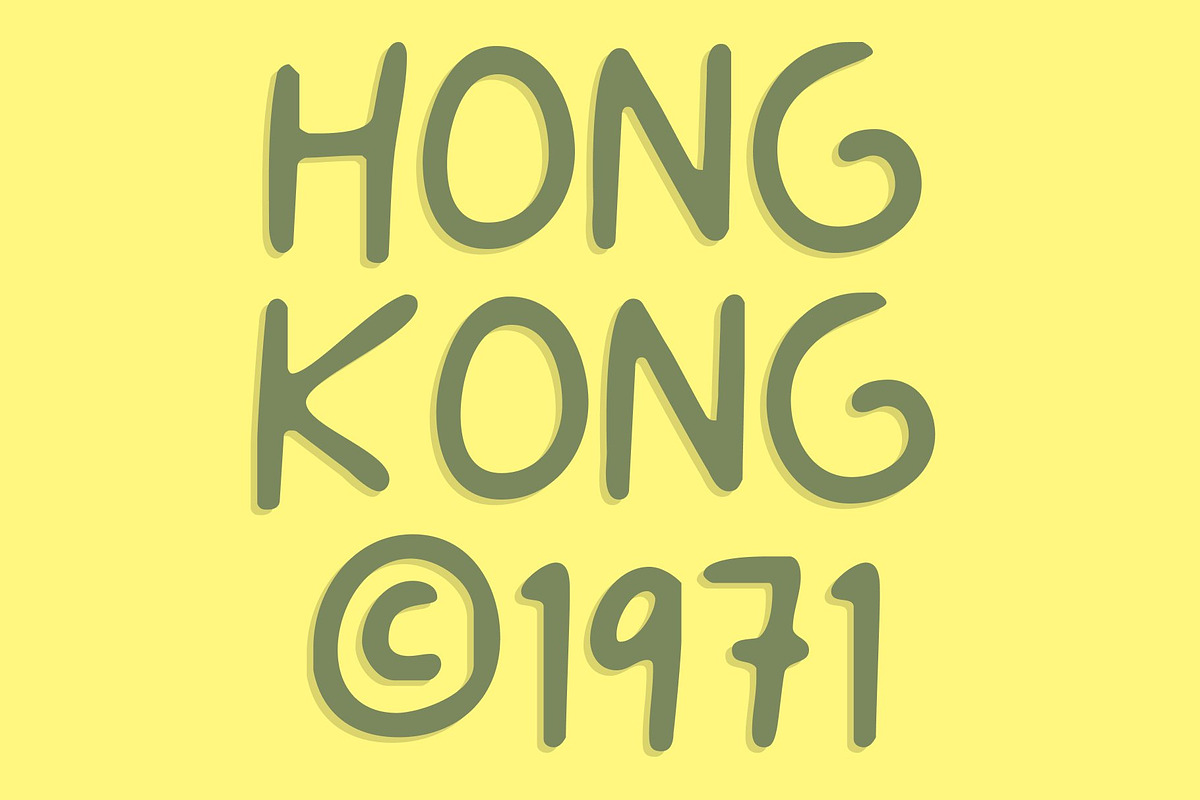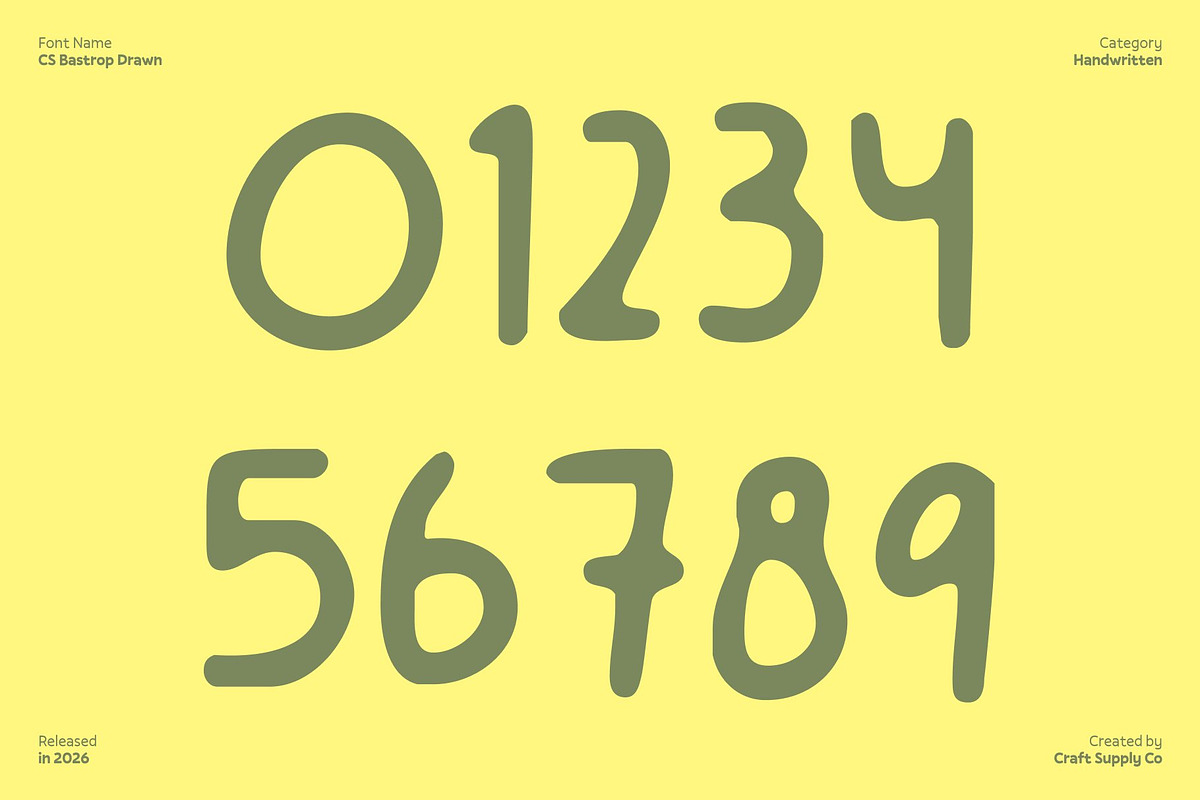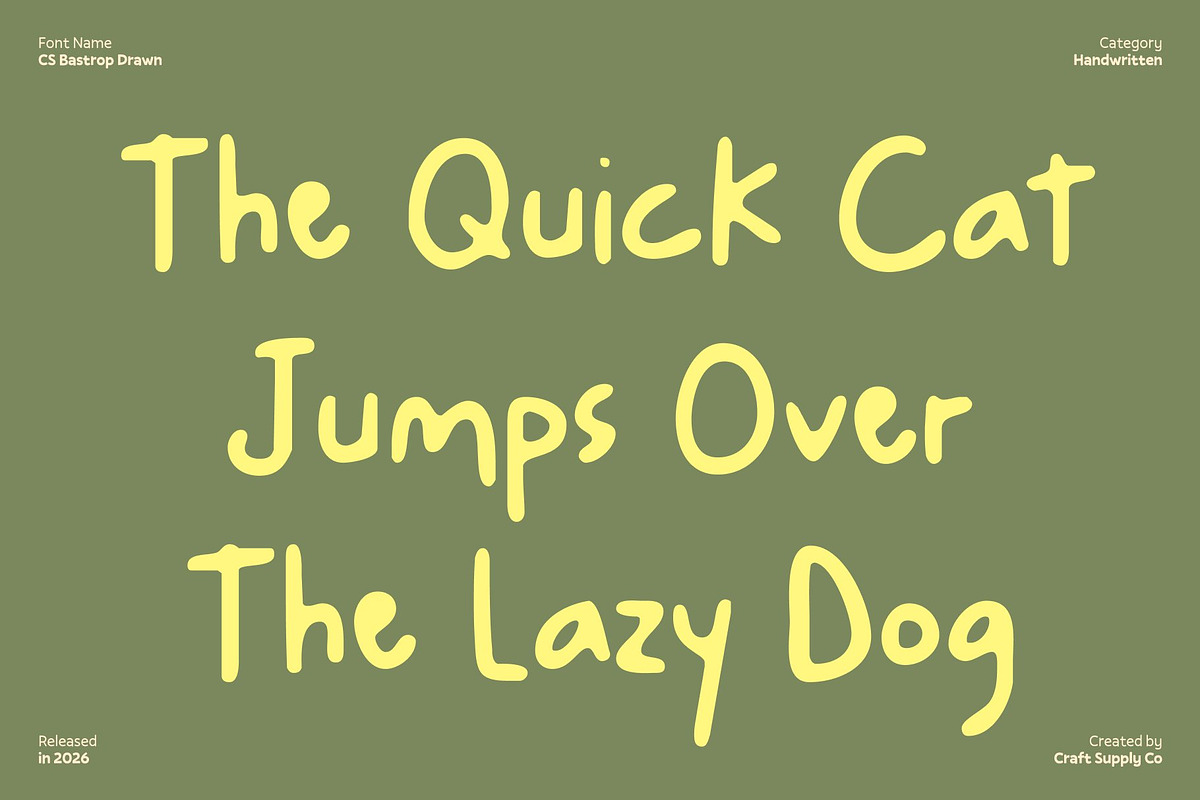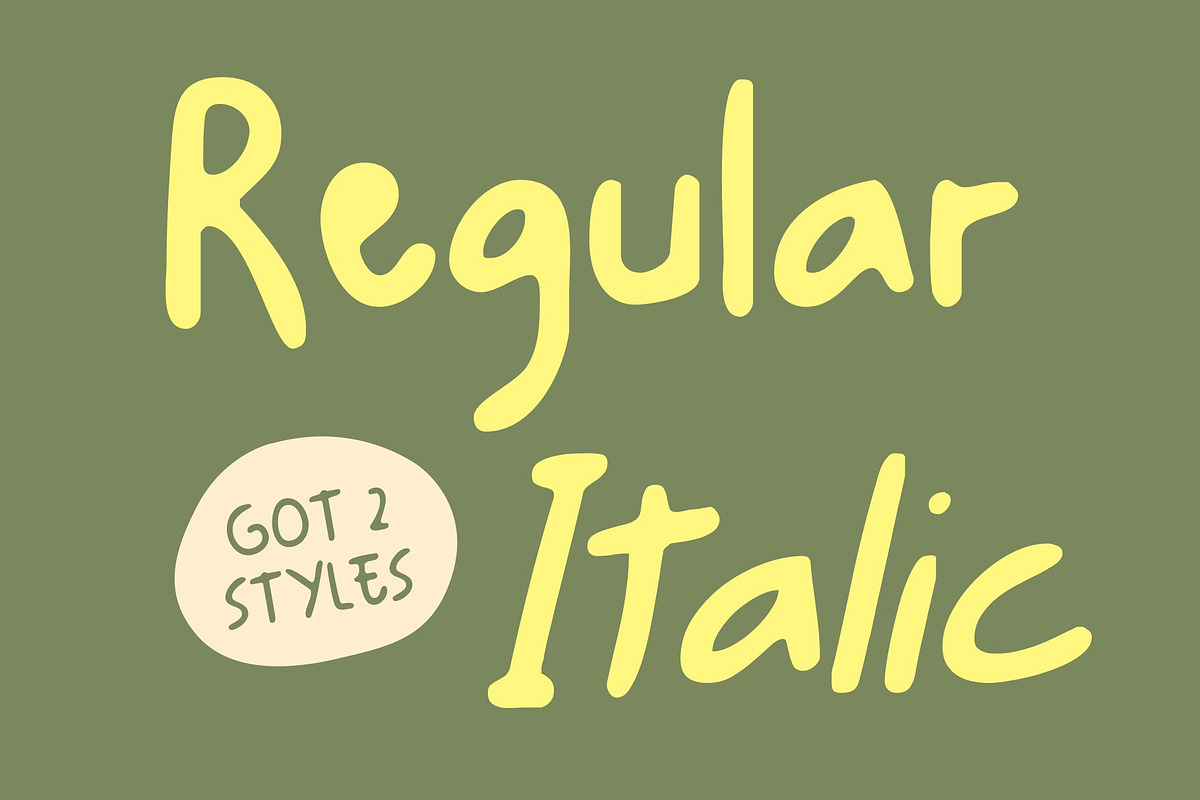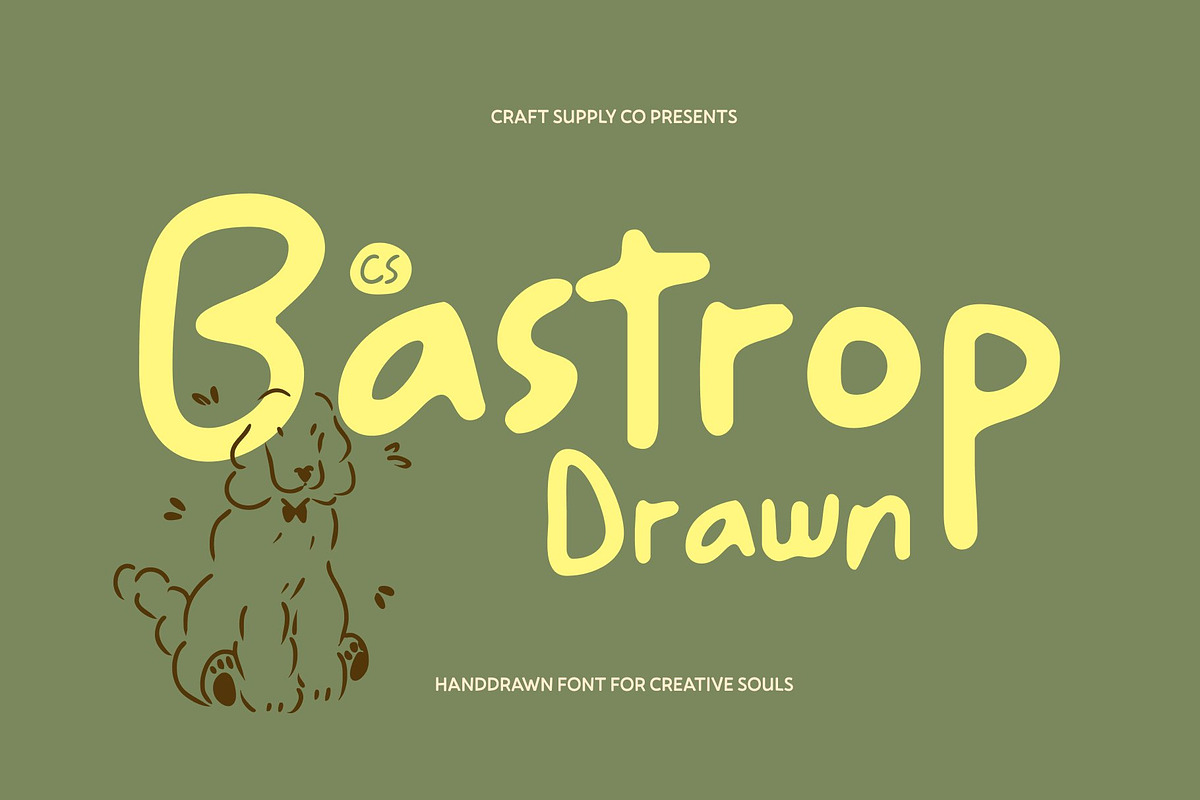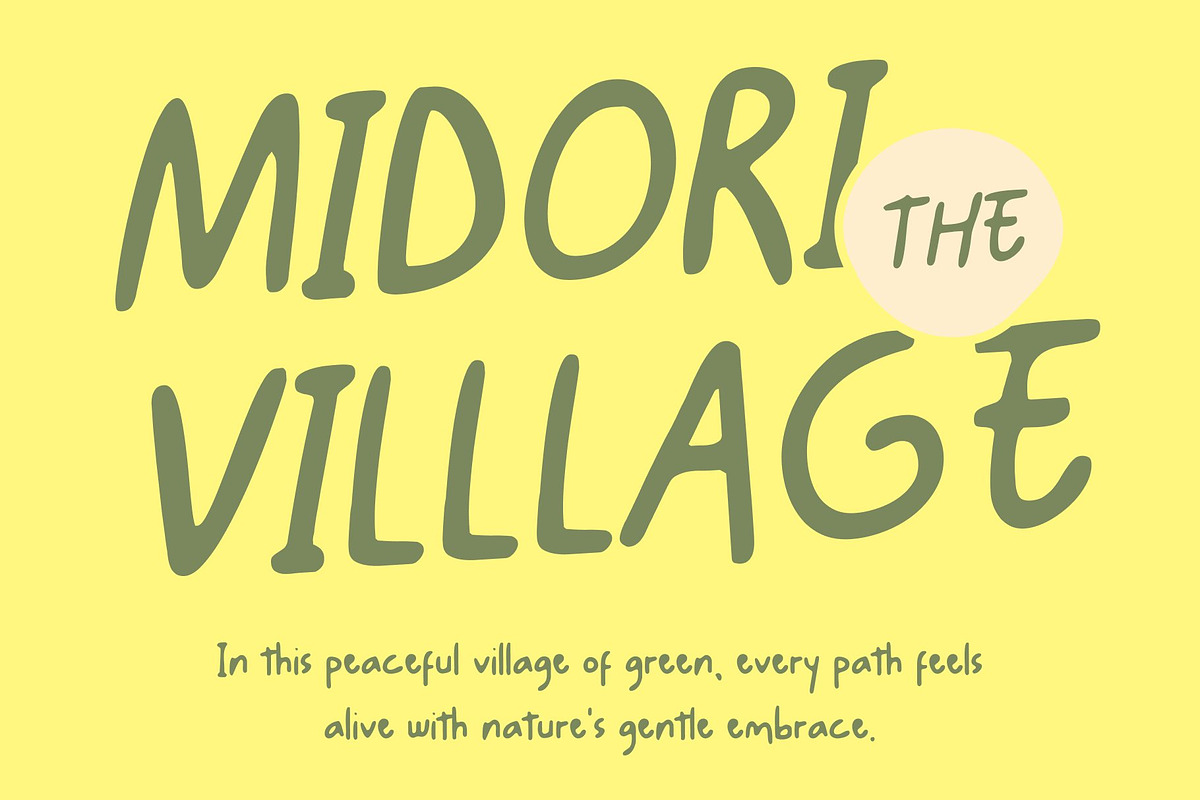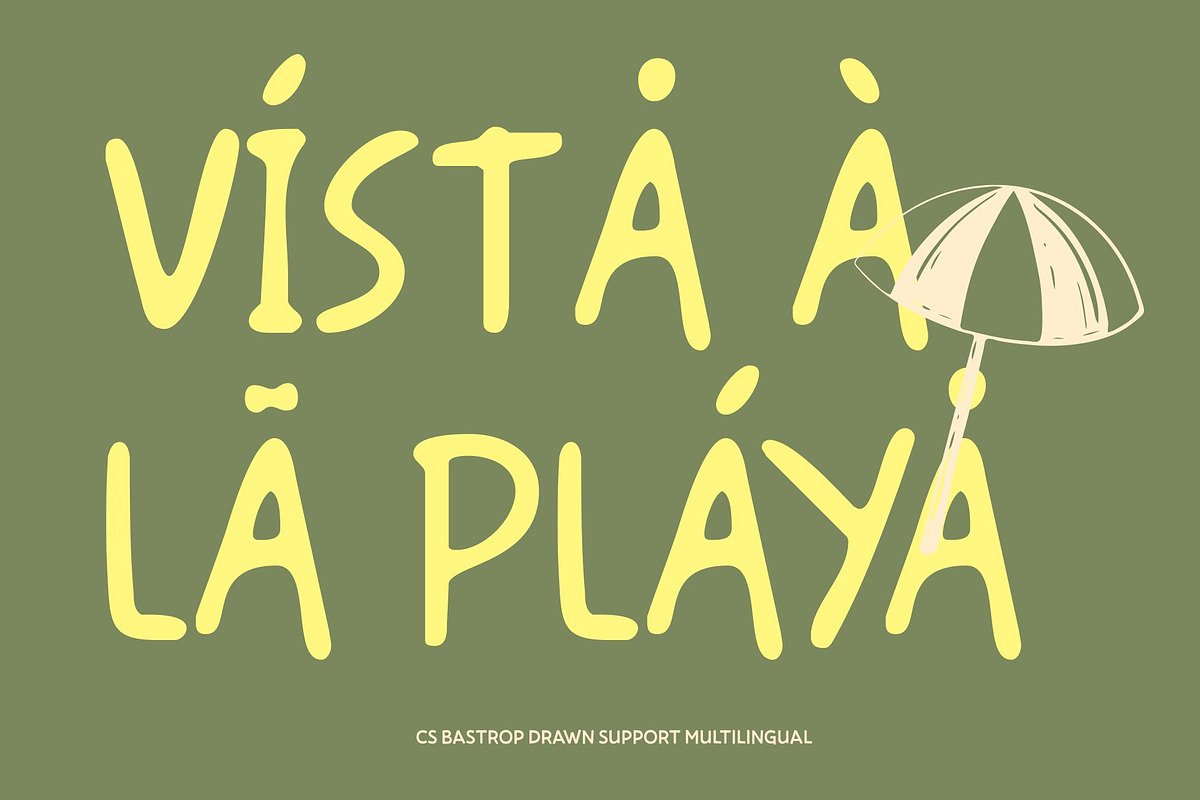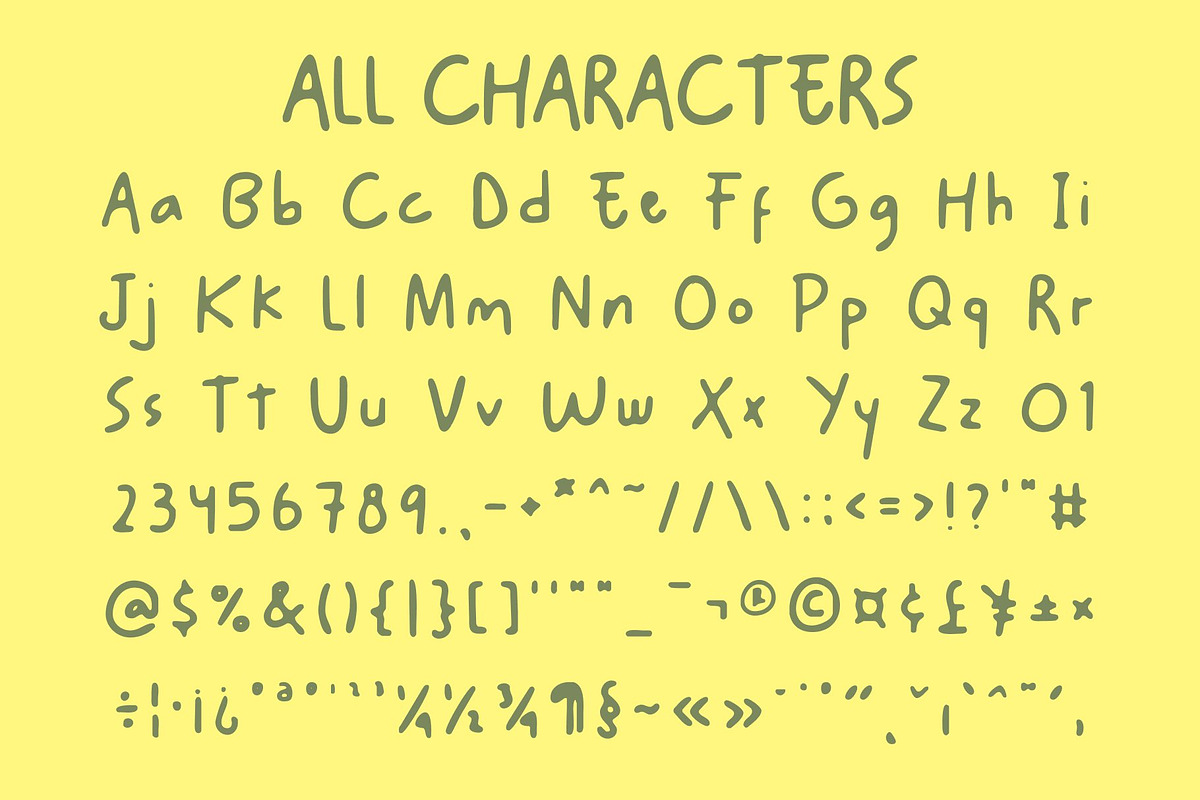
CS Bastrop Drawn
CS Bastrop Drawn – Where Playfulness Meets Personality
Cute Handwritten Sans Serif with a Drawn Touch This is a cute handwritten sans serif font that radiates charm and cheerfulness in every stroke. Its rounded shapes and smooth, friendly lines create a warm and approachable appearance. Enhanced with a drawn texture, the font feels lively and handcrafted, bringing joyful personality to designs that celebrate creativity and fun.
Rounded Shapes for a Friendly Feel The soft curves and gentle edges give this font a welcoming, human character. Each letter looks naturally hand-drawn, adding spontaneity and warmth to your typography. This friendly construction makes it especially suitable for designs aimed at children, families, or audiences who appreciate a lighthearted and expressive style.
Playful Energy for Creative Projects Designed to infuse layouts with energy and joy, this font delivers a playful rhythm that makes every word feel alive. Its handwritten charm works beautifully for party invitations, children’s books, greeting cards, and playful branding, instantly uplifting visuals with a positive, easygoing vibe.
Perfect for Fun and Whimsical Designs From kids’ projects and cheerful logos to colorful posters and packaging, this font adapts effortlessly to fun, creative themes. Its balance of handwritten warmth and sans serif simplicity ensures versatility, making every design feel fresh, friendly, and full of personality.